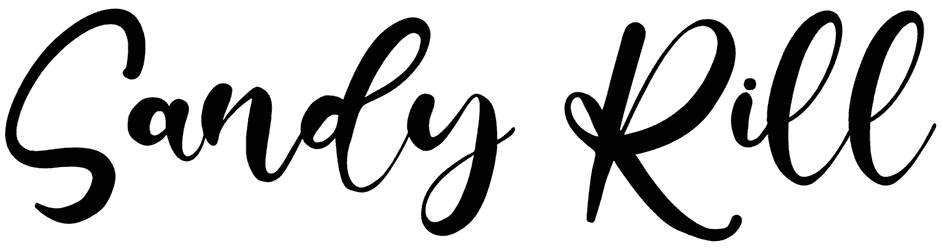
Sandy Rill Font
Sandy Rill is a beautiful script calligraphy font that will make your next project shine. Sandy Rill is ideal for invitations, wedding stationery, or any other creative project where you want to make a statement, thanks to its graceful, flowing lines and refined style.